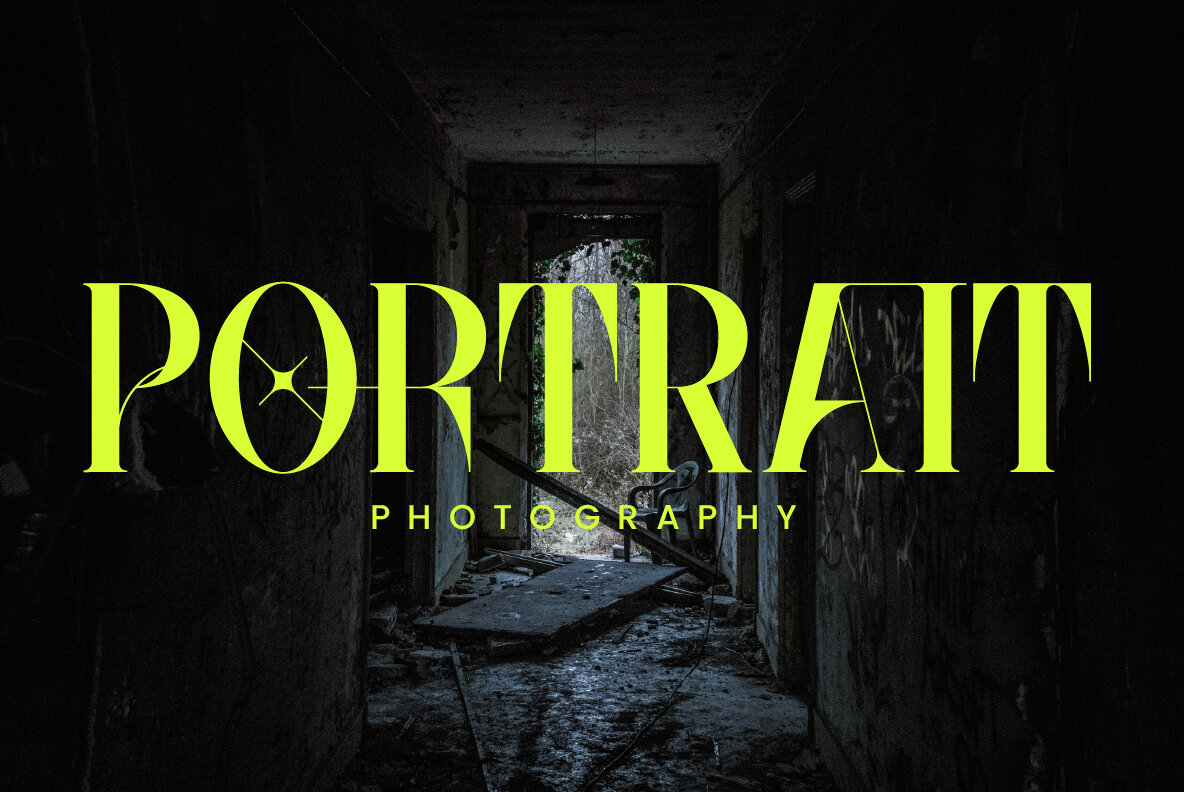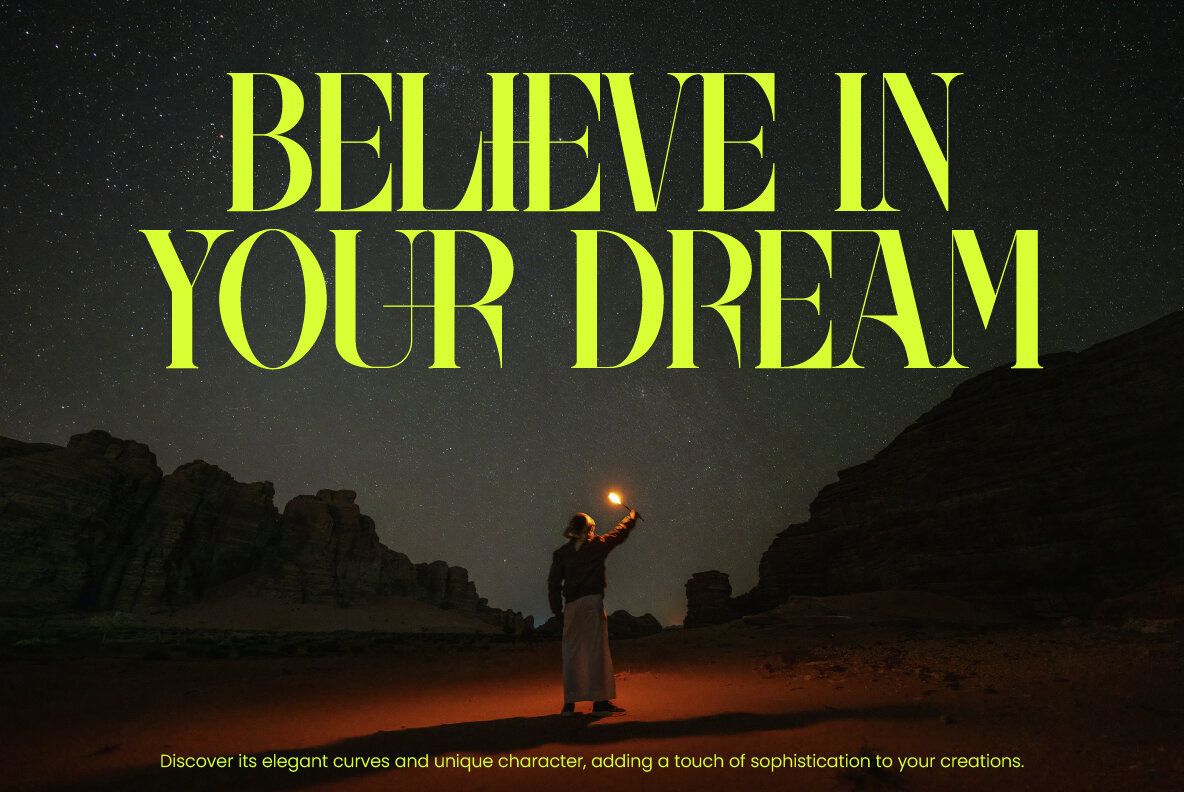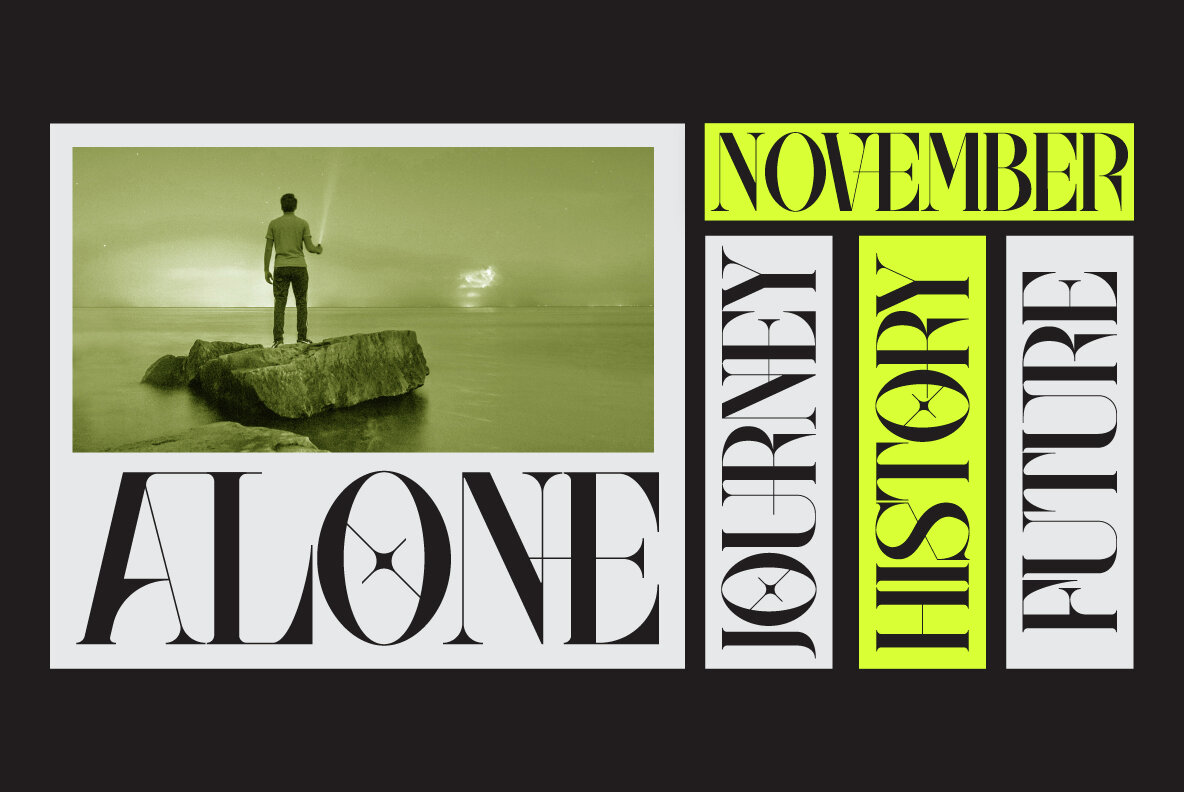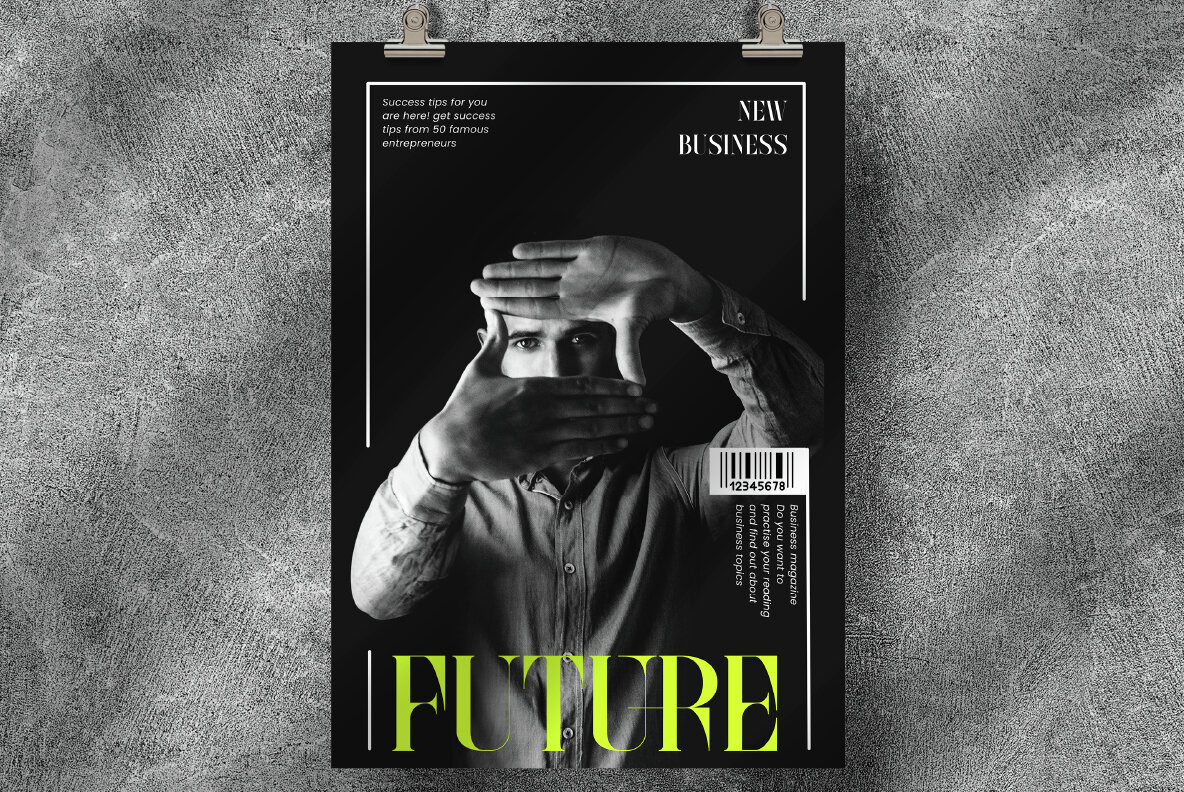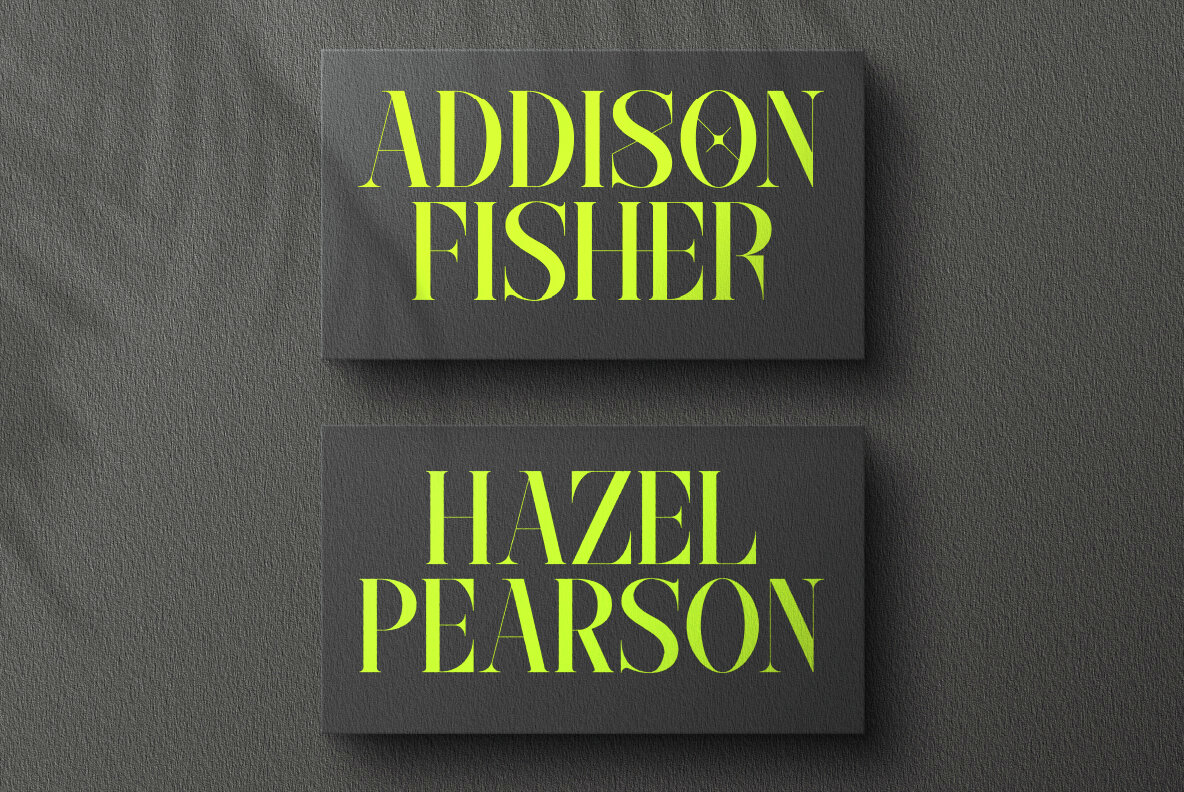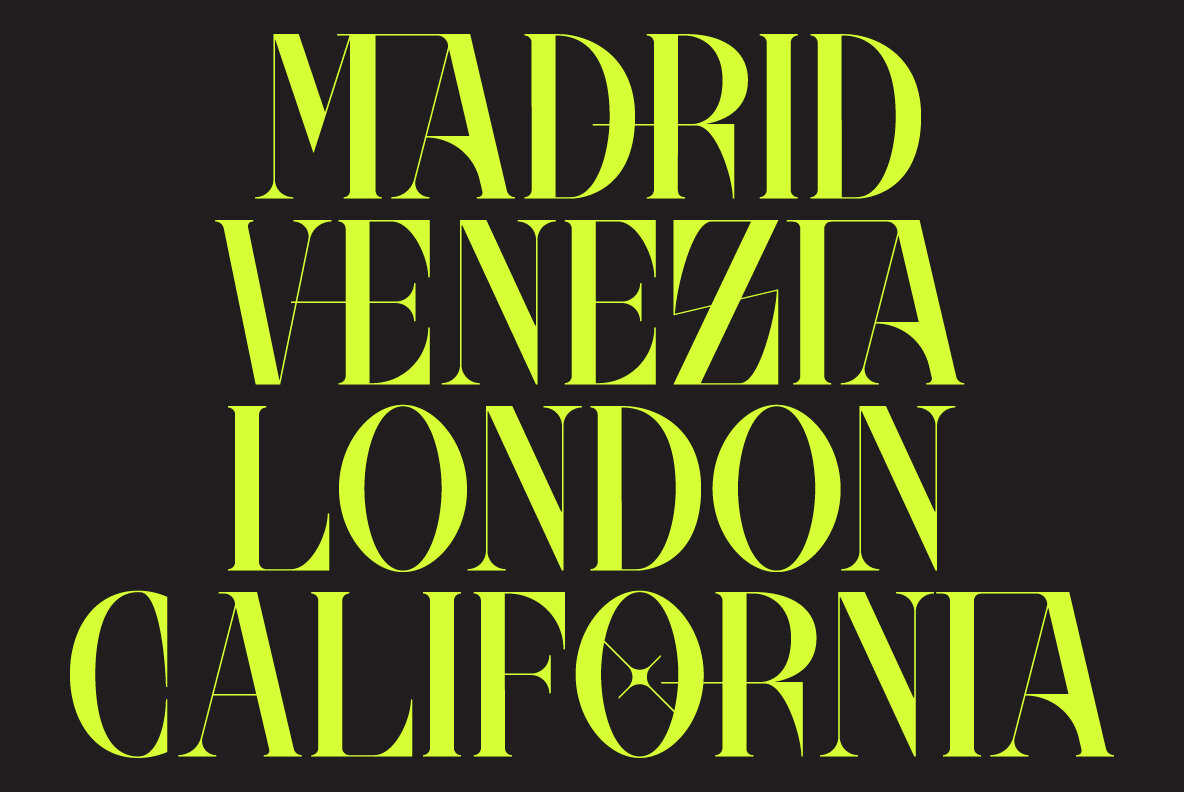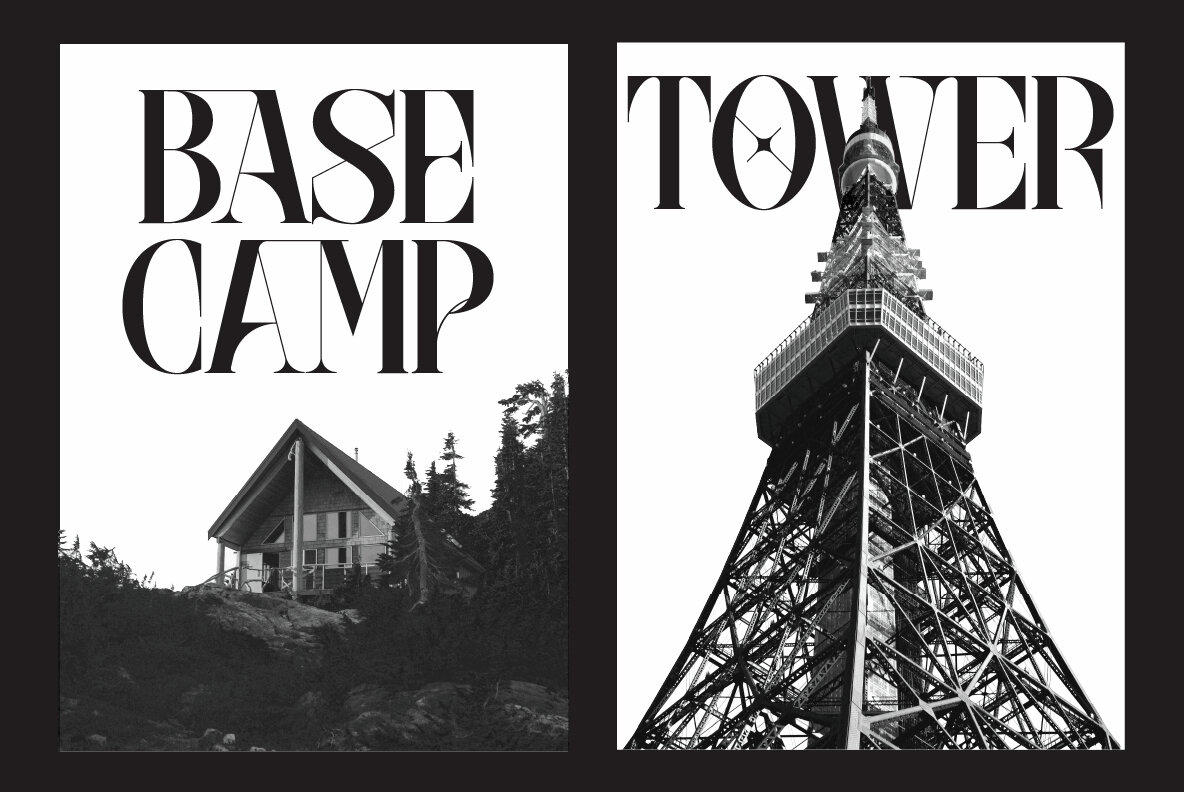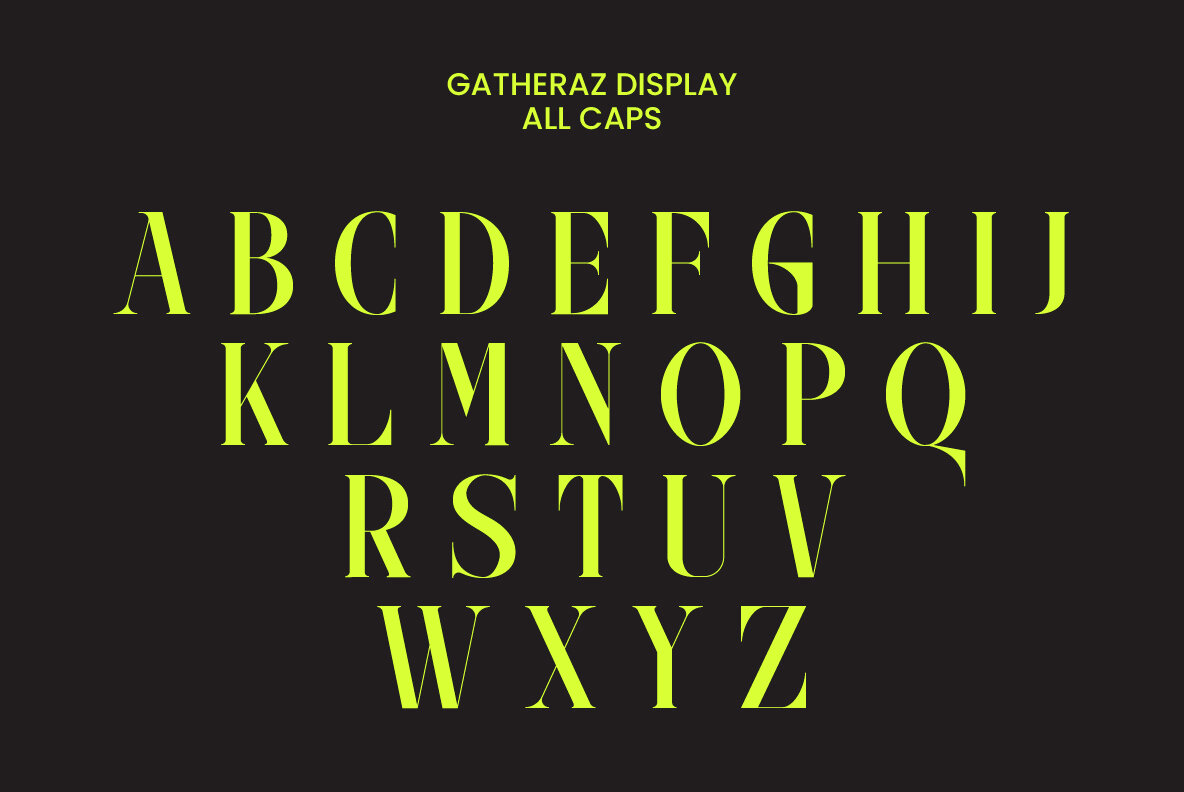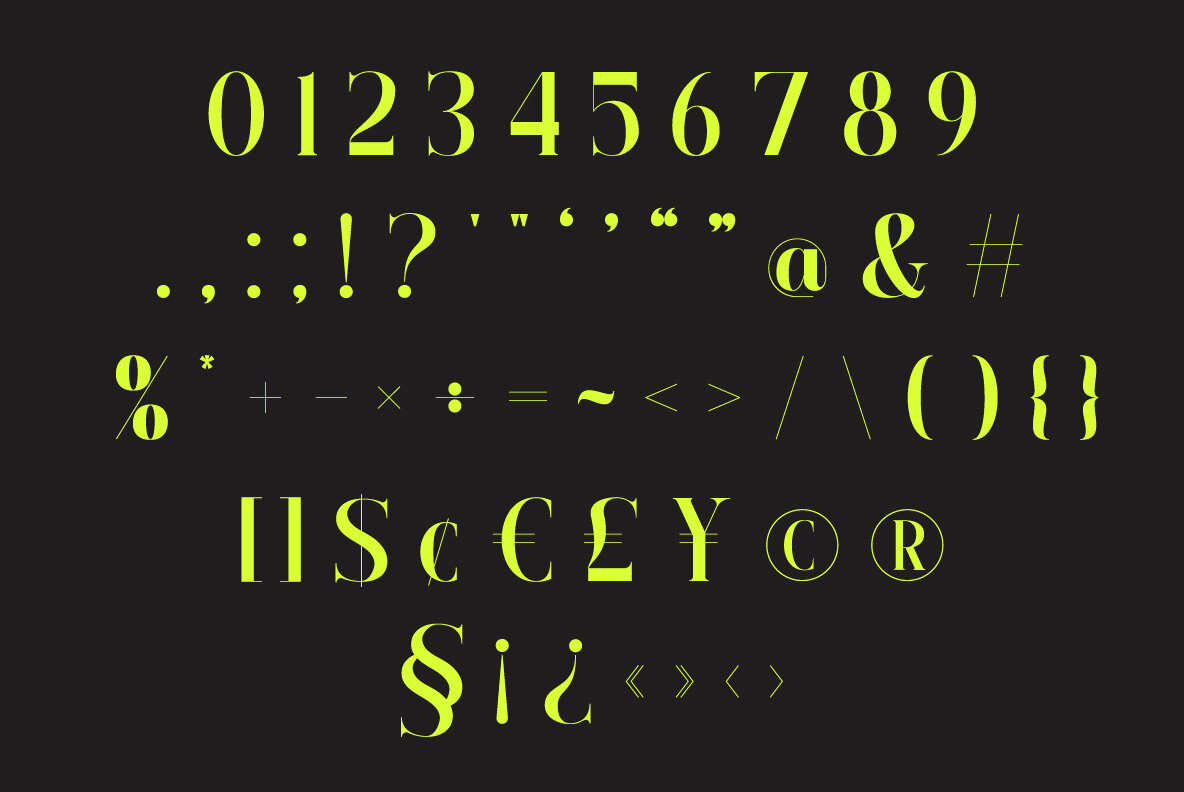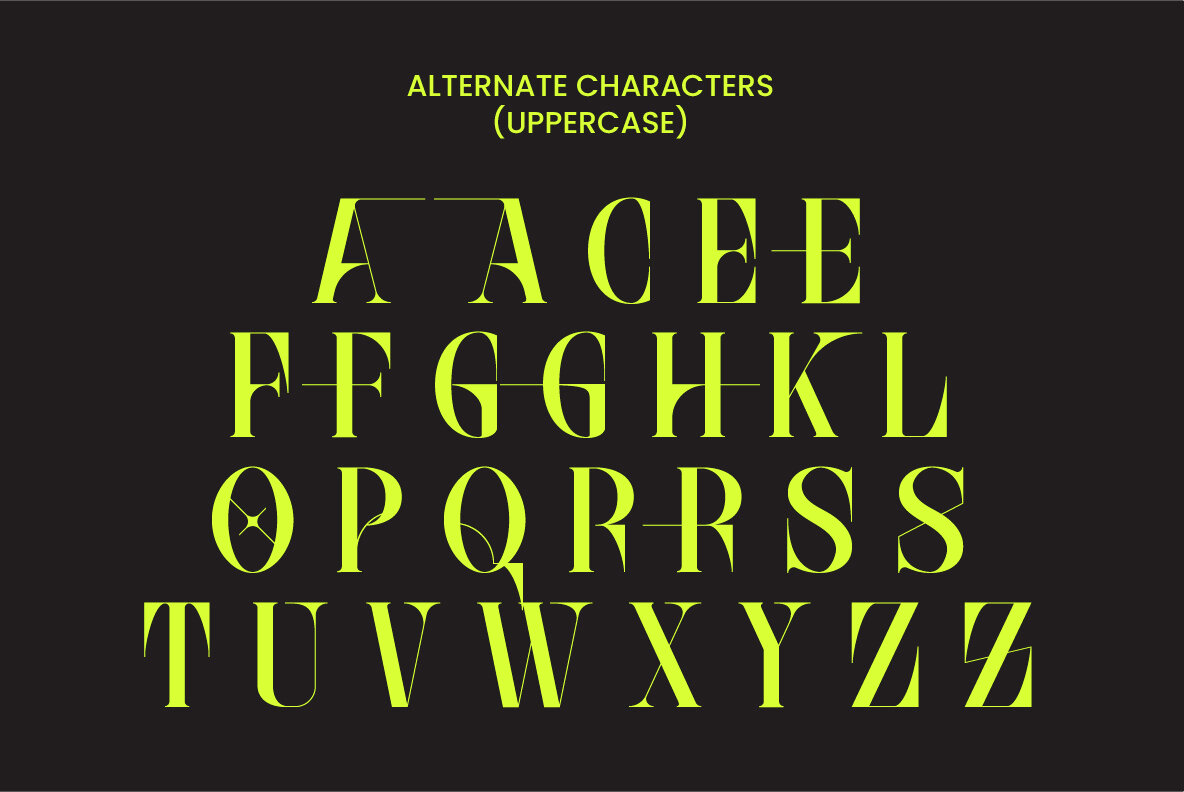
Gatheraz Font
Gatheraz Regular
The Gatheraz font offers a stylish and elegant display, making it an excellent choice for a wide range of design applications. Its refined and fashionable look is ideal for creating logos, branding materials, invitations, stationery, wedding designs, and social media posts. Additionally, the font is PUA encoded, allowing easy access to all glyphs.Gatheraz: Stylish Display Font by Rvandtype Studio